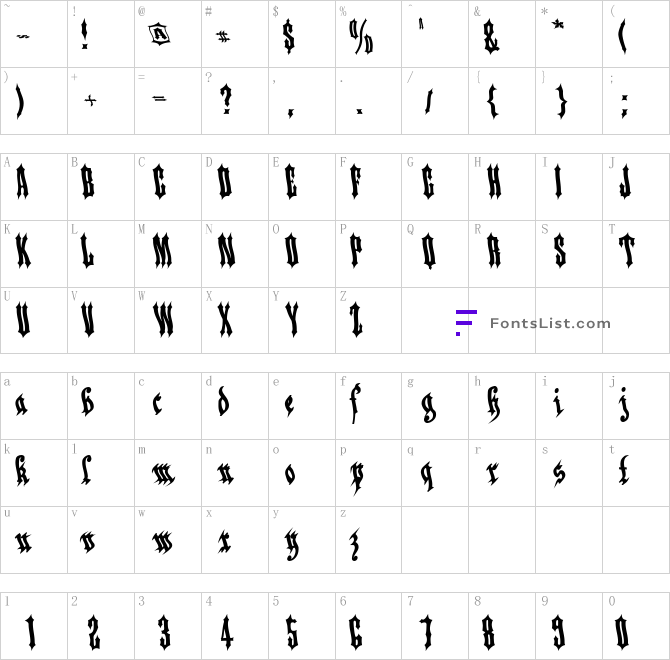
- Font Name:Applesauce04
Applesauce04.ttf is a very beautiful artistic font, Applesauce04.ttf is widely used in the design and printing of various books and pictures,Applesauce04.ttf has a strong visual impact,Applesauce04.ttf is a commonly used font in newspapers, magazines and books, and is used in posters, e-commerce Poster design, store design, logo design, font design and other fields.Applesauce04.